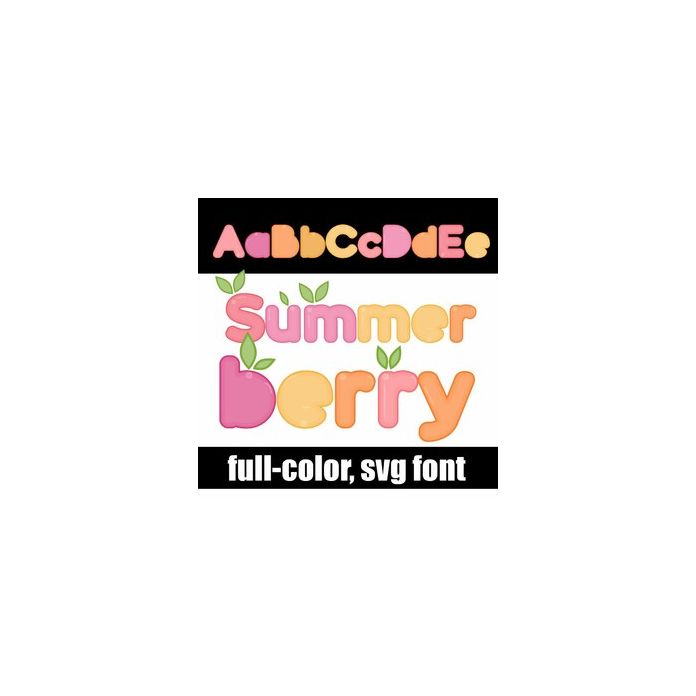
This full-color font features berry-like lettering in a summer color palette. There is an alt case of alternative colors and leaf arrangements that you can access through your system's character map.